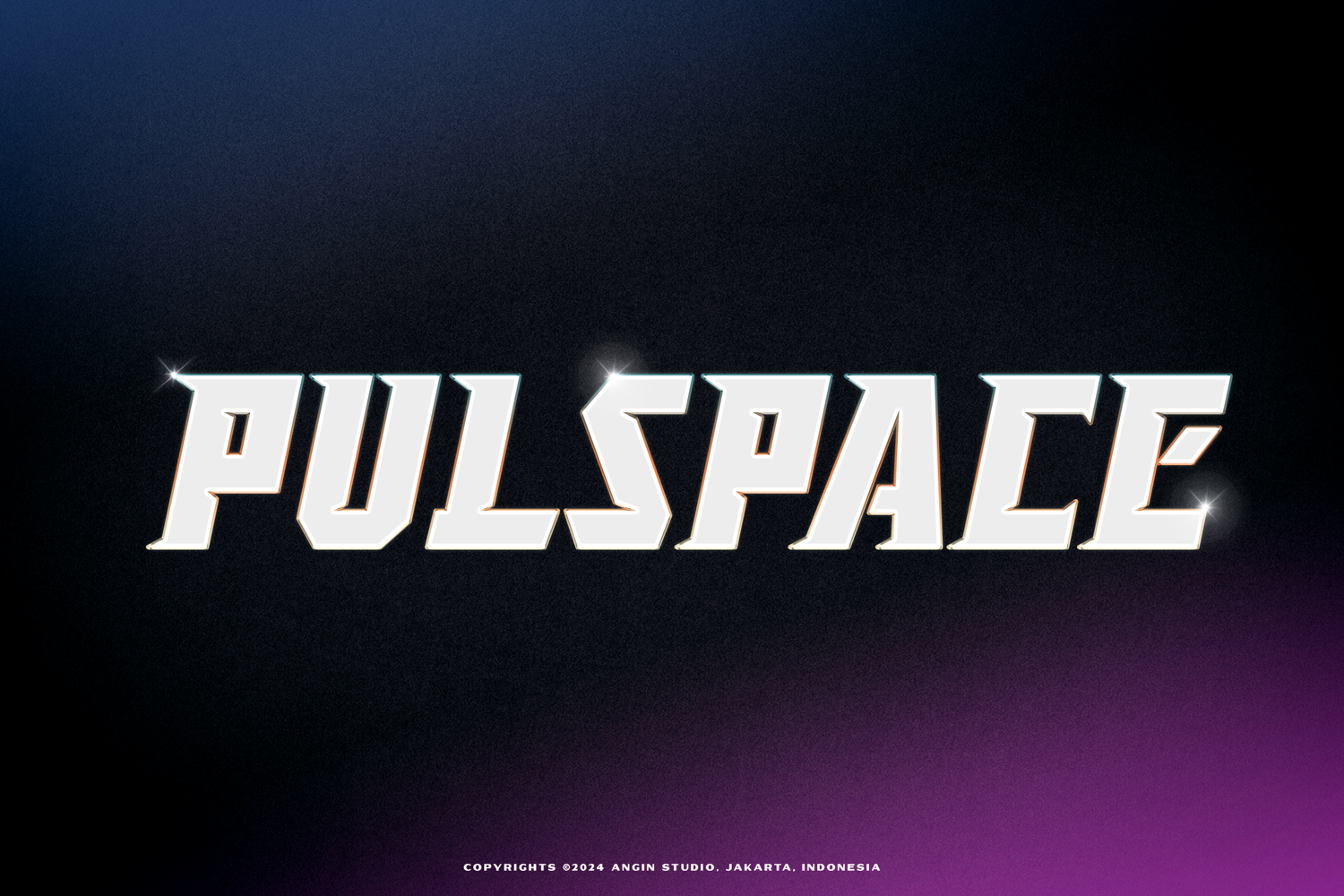
Pulsplace Sporty Font
Pulspace
In a world pulsating with the rhythm of life, Our new font are present with the energy of spirit and enthusiasm.
Let us introduce our new font called Pulspace comes with strong and sporty look that is very suitable to be used for your design needs.
“Pulspace” resonates with individuals seeking to embrace the thrill of movement and the rhythm of their own design journey.